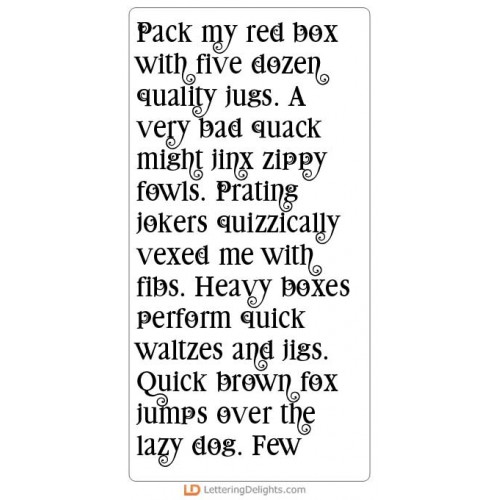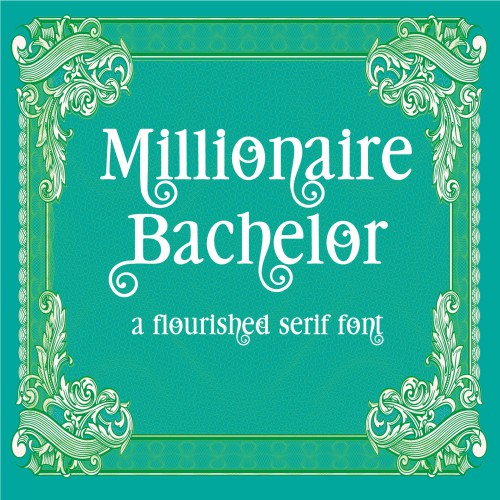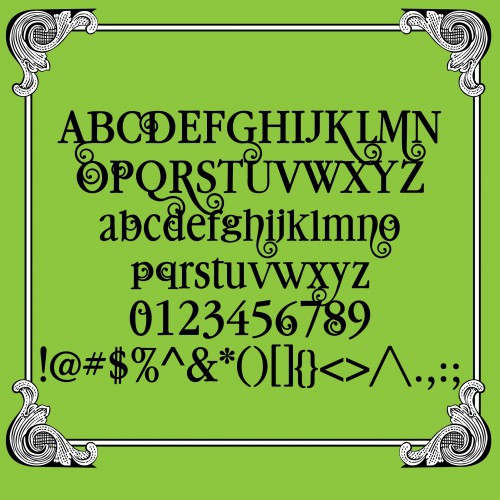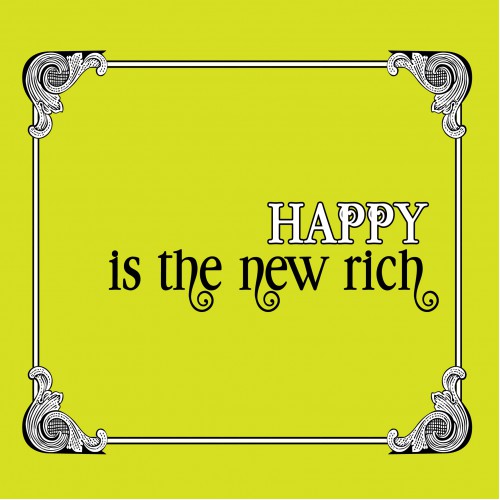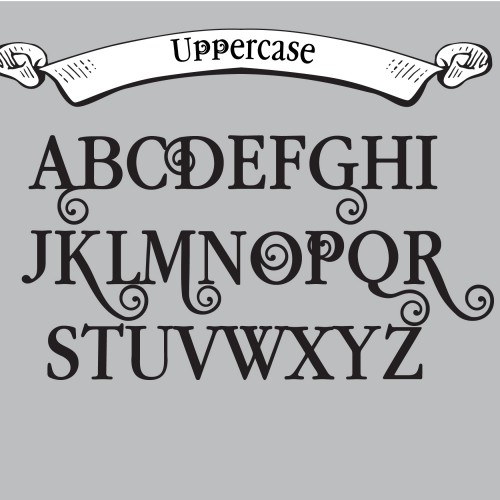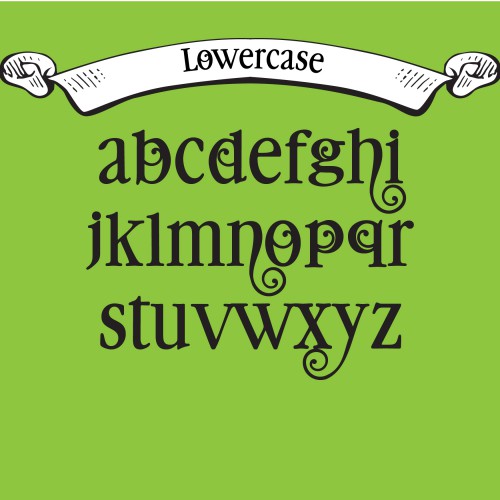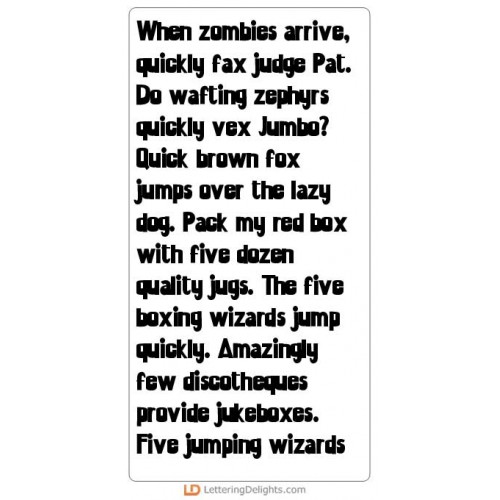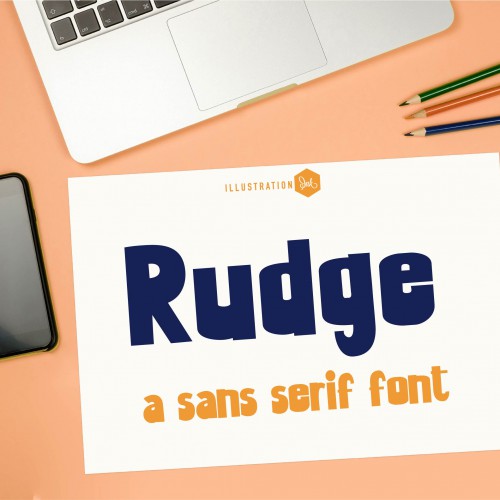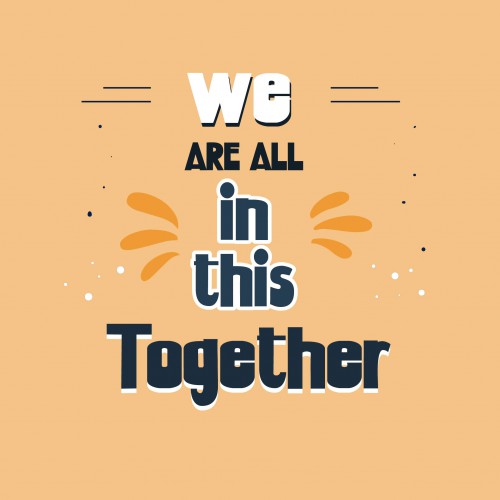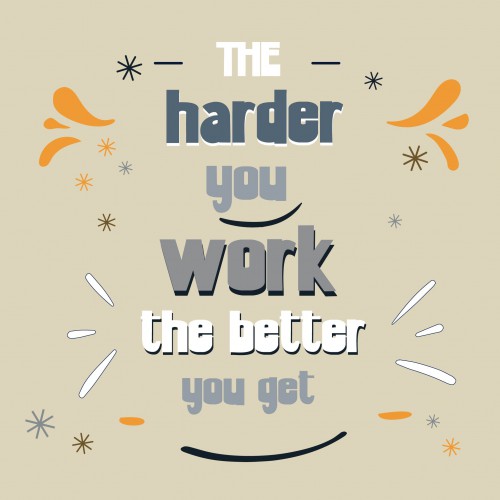
2. Charmingly Chic - Big Bundle
This fun collection features chic halloween, fall and Thanksgiving inspired designs. Perfect for cards, crafts, gifts, planner stickers, classrooms, scrapbook pages and more!
PN Millionaire Bachelor - FN
This serif font is unique with short ascenders and descenders and swirly flourishes...
PN Rudge - FN
This blocky sans serif is a great font for titles, displays, posters and more...
PN Millionaire Murder - FN
This flourished serif font is dripping with blood and murder...
PN Murder Rudge Condensed - FN
This simple sans serif is dripping with blood...
ZP Strawberry Scary - FN
This adorable sans serif has flourished tails throughout...
ZP Strawberry Gumdrop - FN
This sans serif has flourished tails throughout and drips with gore...
DB Charmingly Chic - DB
This fun doodlebat font features 26 chic fall and Thanksgiving inspired designs. Perfect for cards, ..
DB Charmingly Chic - Halloween - DB
This fun doodlebat font features 26 chic Halloween inspired designs. Perfect for cards, crafts, gift..